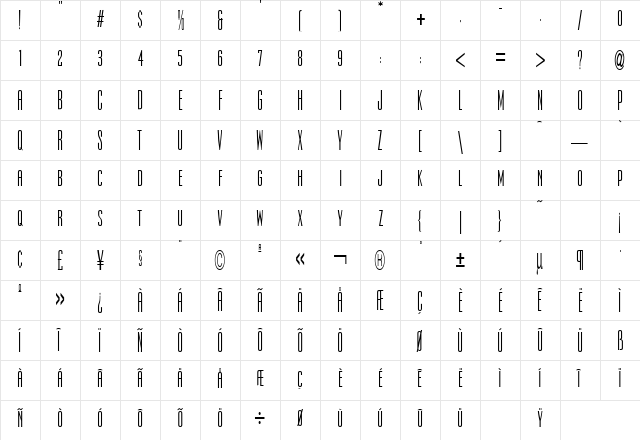
Ultra Condensed Sans Two Regular
Design Context for Ultra Condensed Sans Two Typeface
Ultra Condensed Sans Two is a composed and adaptable typeface that performs quietly and consistently across a wide range of design contexts. Its narrow stance lets it pack a punch even in space-constrained designs.